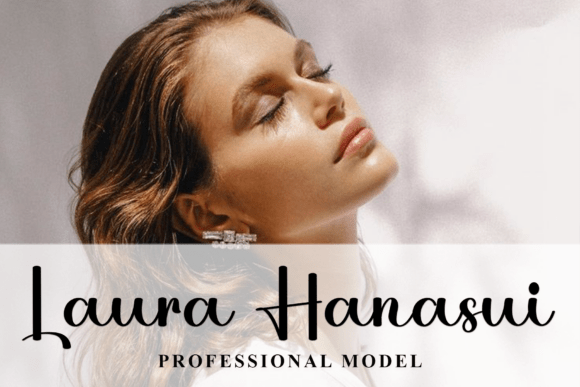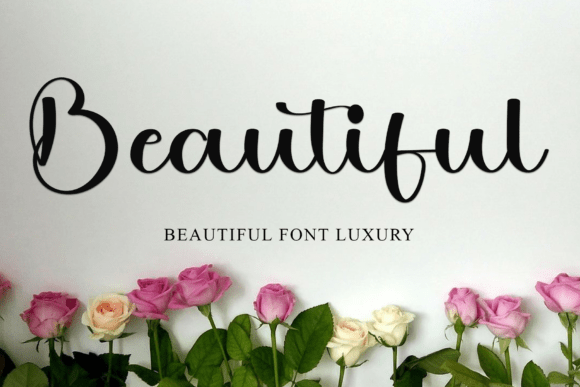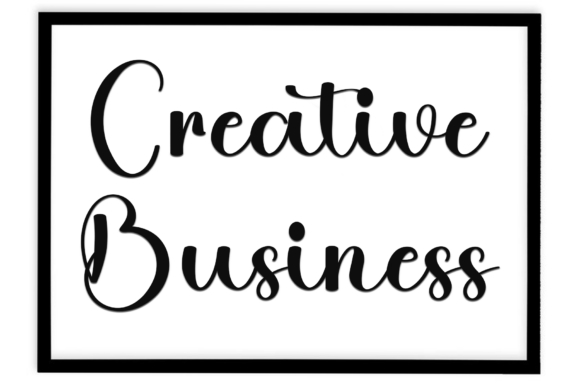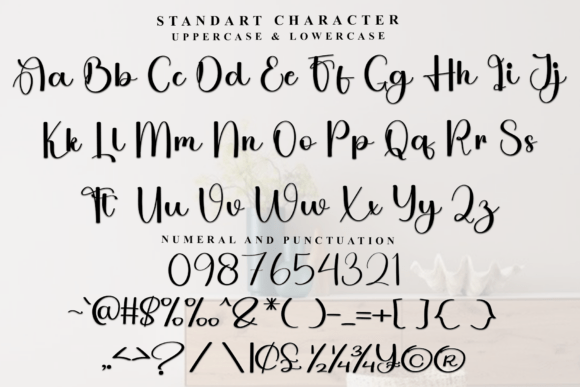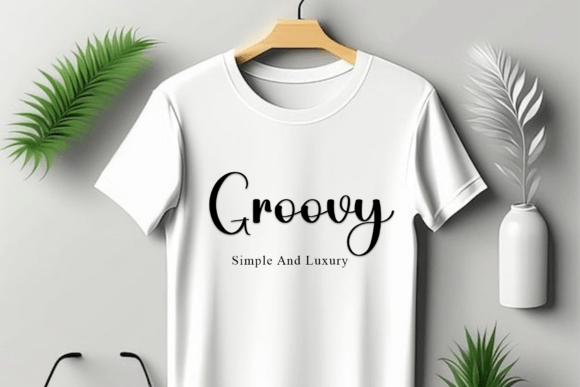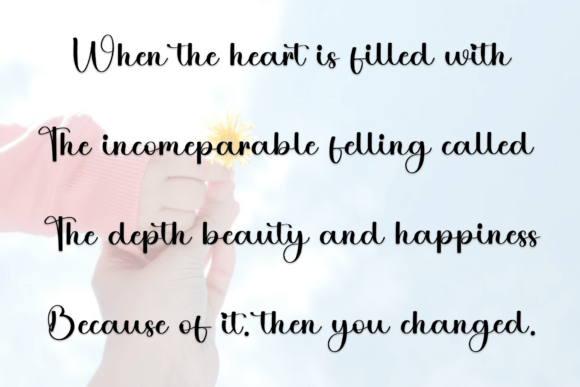
Discover the Charm of Hangouth Font: Elevate Your Designs with a Unique Touch
In the world of typography, fonts play a crucial role in conveying messages, evoking emotions, and adding personality to designs. Among the myriad of fonts available, Hangouth stands out as a beautiful and eye-catching addition to any creative project. Designed with a soft, unique touch, Hangouth font is poised to become a favorite among designers, crafters, and artists looking for a distinctive and versatile typeface.
The Distinctive Character of Hangouth Font
Hangouth font is characterized by its distinctive strokes, which give it a special charm. Unlike more traditional fonts, Hangouth’s unique design makes it instantly recognizable and memorable. Its softness adds a touch of warmth and approachability, making it perfect for projects that require a friendly and inviting tone. Whether you’re working on a logo, a poster, or a digital platform, Hangouth font can help you create a lasting impression.
One of the key advantages of Hangouth font is its versatility. With a wide range of characters, this font can be used across various design projects, crafts, and creative works. From branding and advertising to packaging and web design, Hangouth font adapts seamlessly to different contexts, ensuring your message is conveyed with clarity and style. Its flexibility makes it an excellent choice for designers who need a reliable and attractive font for multiple applications.
Ideal for a Wide Range of Products
The natural style of Hangouth font makes it an ideal choice for a wide range of products. Whether you’re designing stationery, creating promotional materials, or crafting digital content, Hangouth font can enhance your designs and make them more appealing to your audience. Its unique touch can help you stand out in a crowded market, attracting attention and engaging viewers across different artistic and creative fields.
Enhance Your Designs with Hangouth Font
Incorporating Hangouth font into your designs can elevate your work and make it more memorable. Its soft, unique touch adds a layer of sophistication and charm, turning ordinary designs into something extraordinary. For designers and crafters looking to infuse their projects with personality and style, Hangouth font is an excellent choice. Its versatility, compatibility, and distinctive character make it a valuable addition to any creative toolkit.
Hangouth font is more than just a typeface; it’s a creative tool that can transform your designs and bring your ideas to life. With its beautiful and eye-catching design, distinctive strokes, and versatile nature, Hangouth font is set to become a go-to choice for designers and crafters worldwide. Whether you’re working on a small project or a large-scale campaign, Hangouth font can help you achieve your creative goals and connect with your audience on a deeper level. Discover the charm of Hangouth font today and take your designs to new heights.
Key Features of Hangouth Font:
- Beautiful and eye-catching design
- Soft, unique touch
- Distinctive strokes for a special character
- Versatile for various design projects, crafts, and creative works
- Ideal for a wide range of products
Embrace the uniqueness of Hangouth font and let it be the voice of your brand or creative project. Its charm and versatility are sure to captivate your audience and set your work apart from the rest.